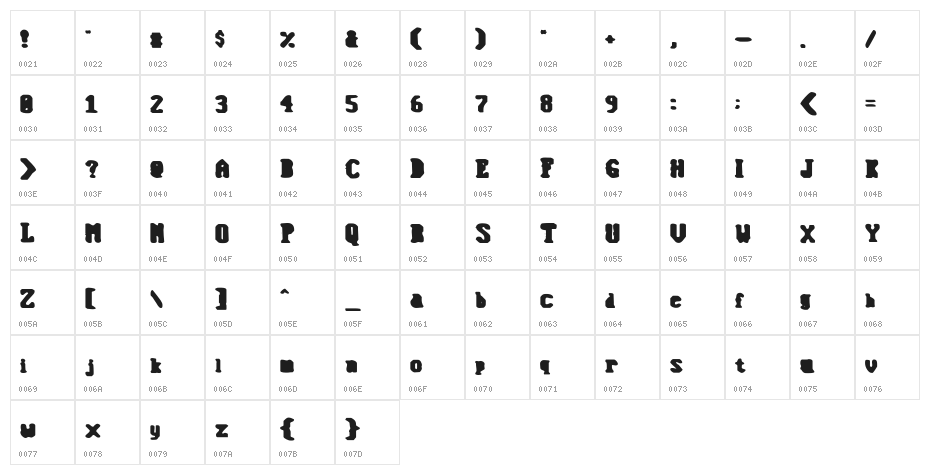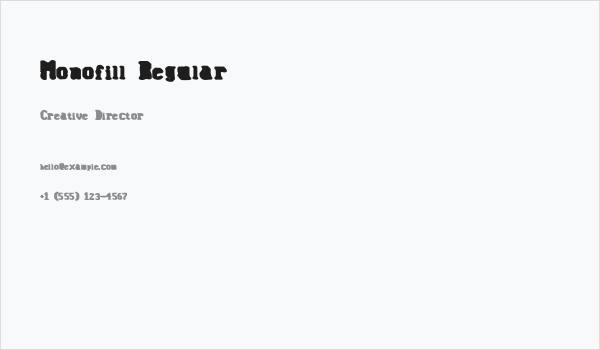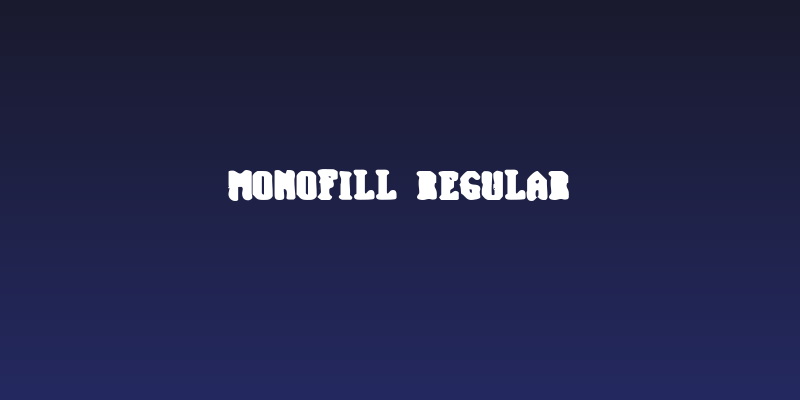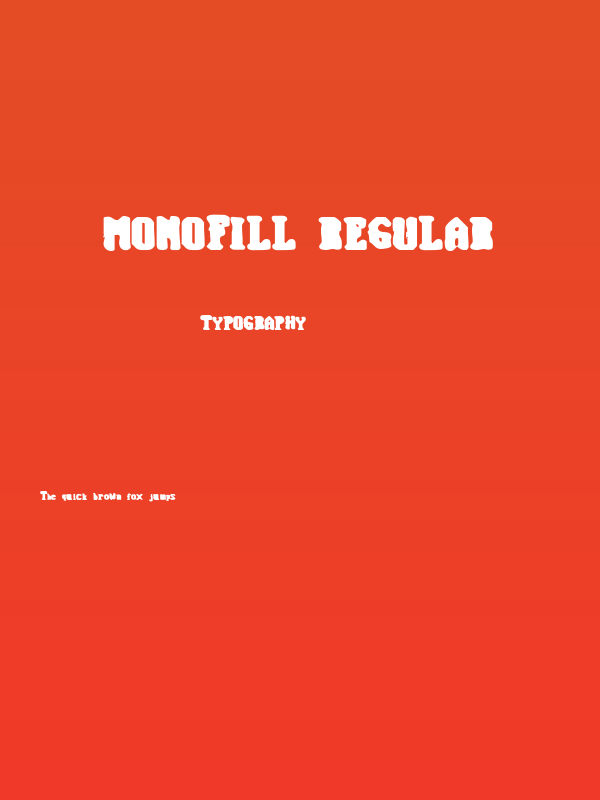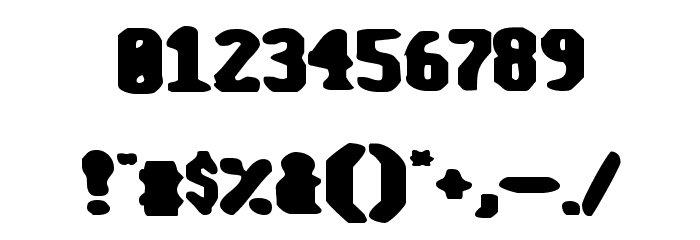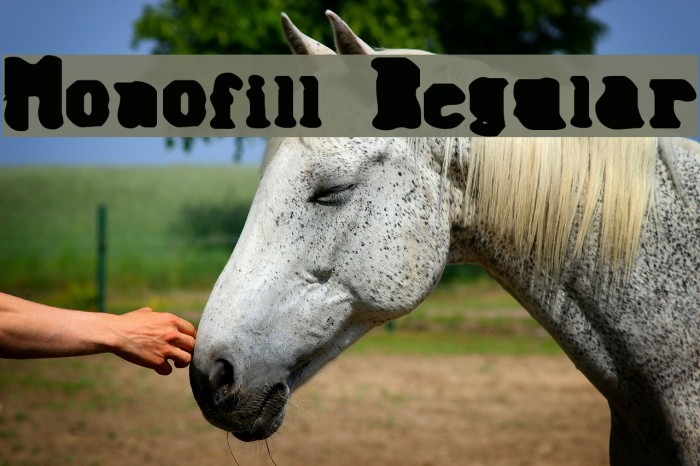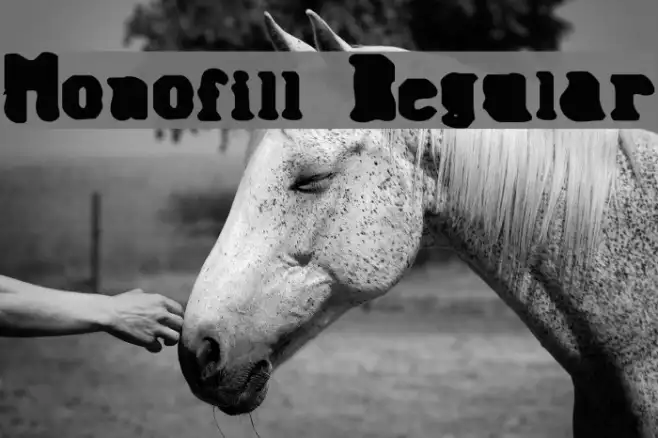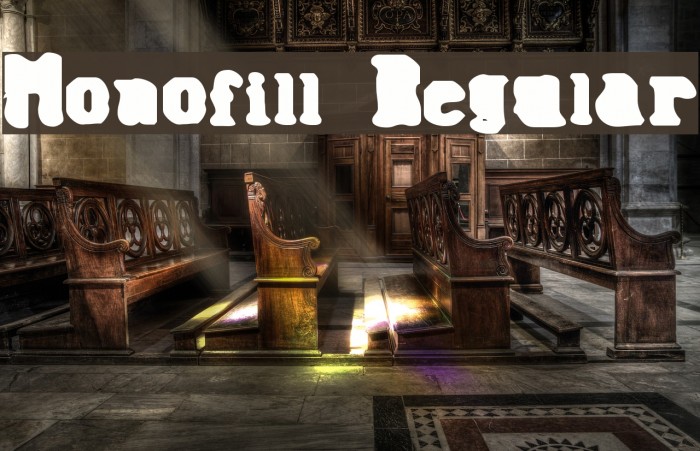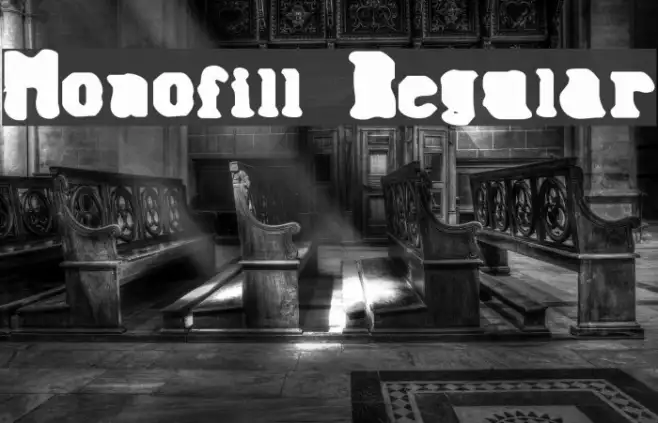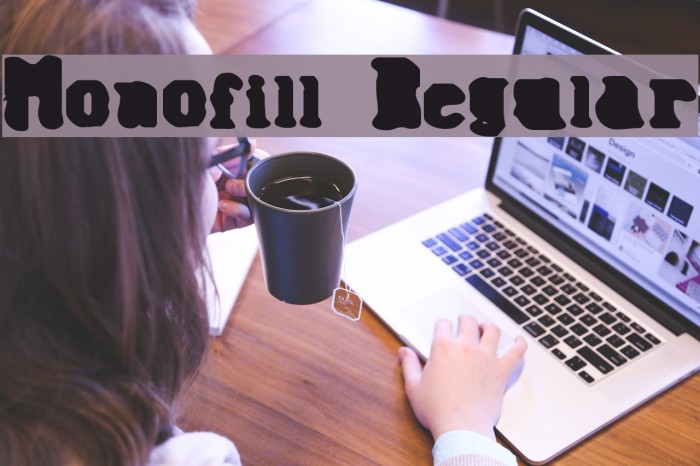
Monofill Regular Font
Monofill Regular Description
This font features a bold and robust design with thick, rounded strokes that create a strong visual impact. The characters are uniformly wide, giving a monospaced appearance, which is ideal for creating a consistent and structured look. The uppercase and lowercase letters maintain a similar width, enhancing the uniformity across the text. The numbers and special characters are designed to match the boldness and width of the alphabet, ensuring a cohesive appearance. This font's playful yet structured style makes it suitable for various creative projects.
| Proposed Projects | Ideal for posters, headlines, branding, and any project requiring a bold, impactful typeface. |